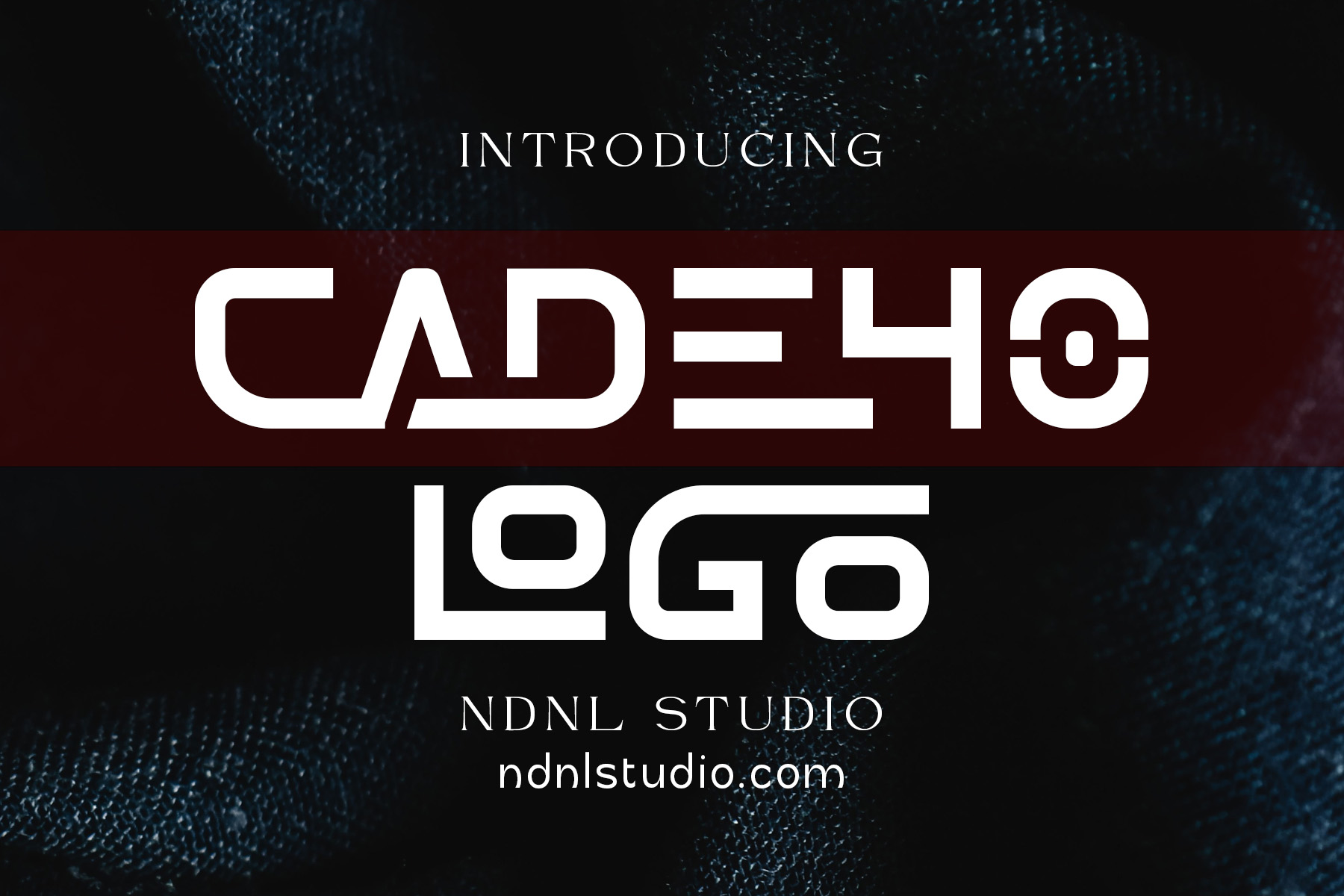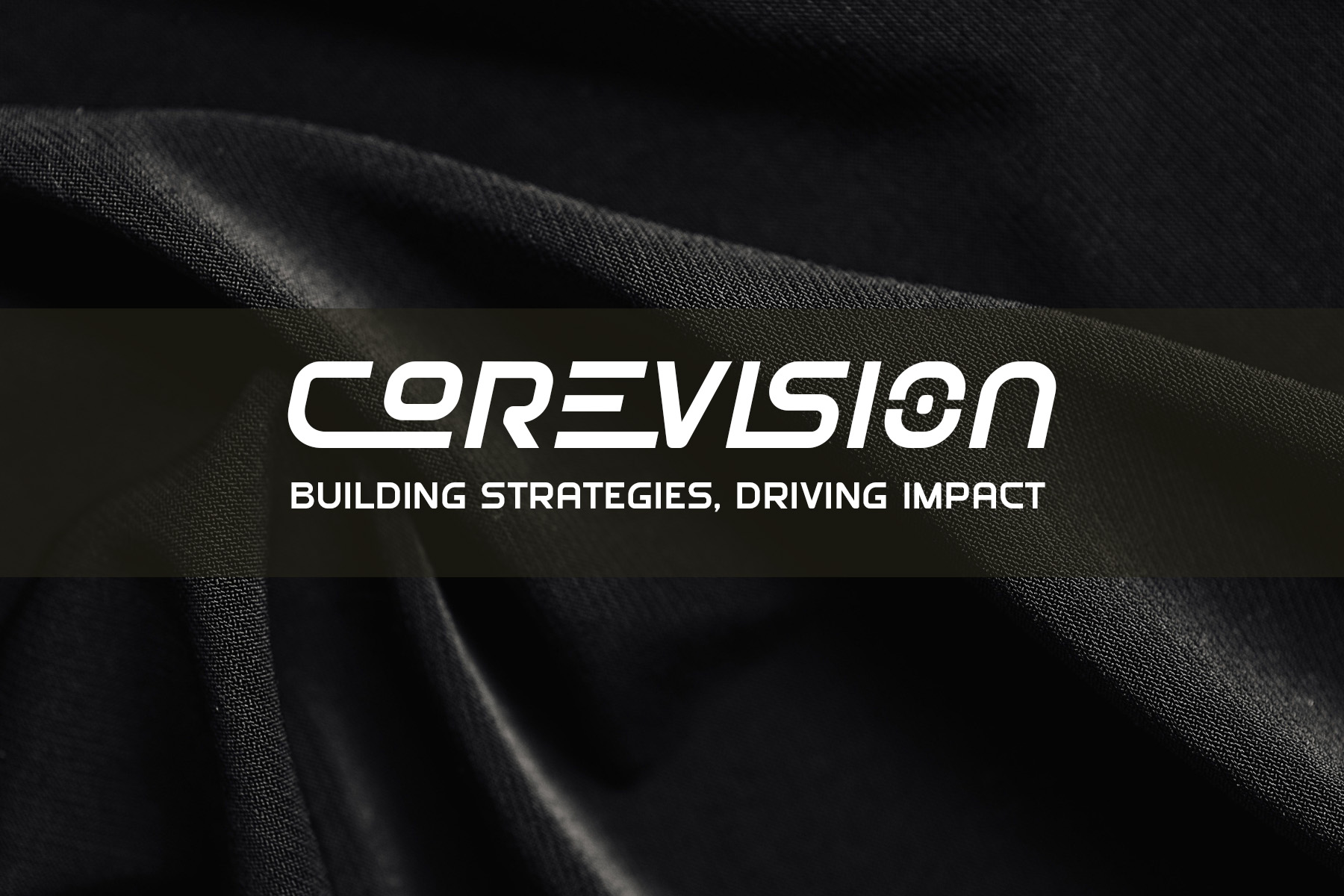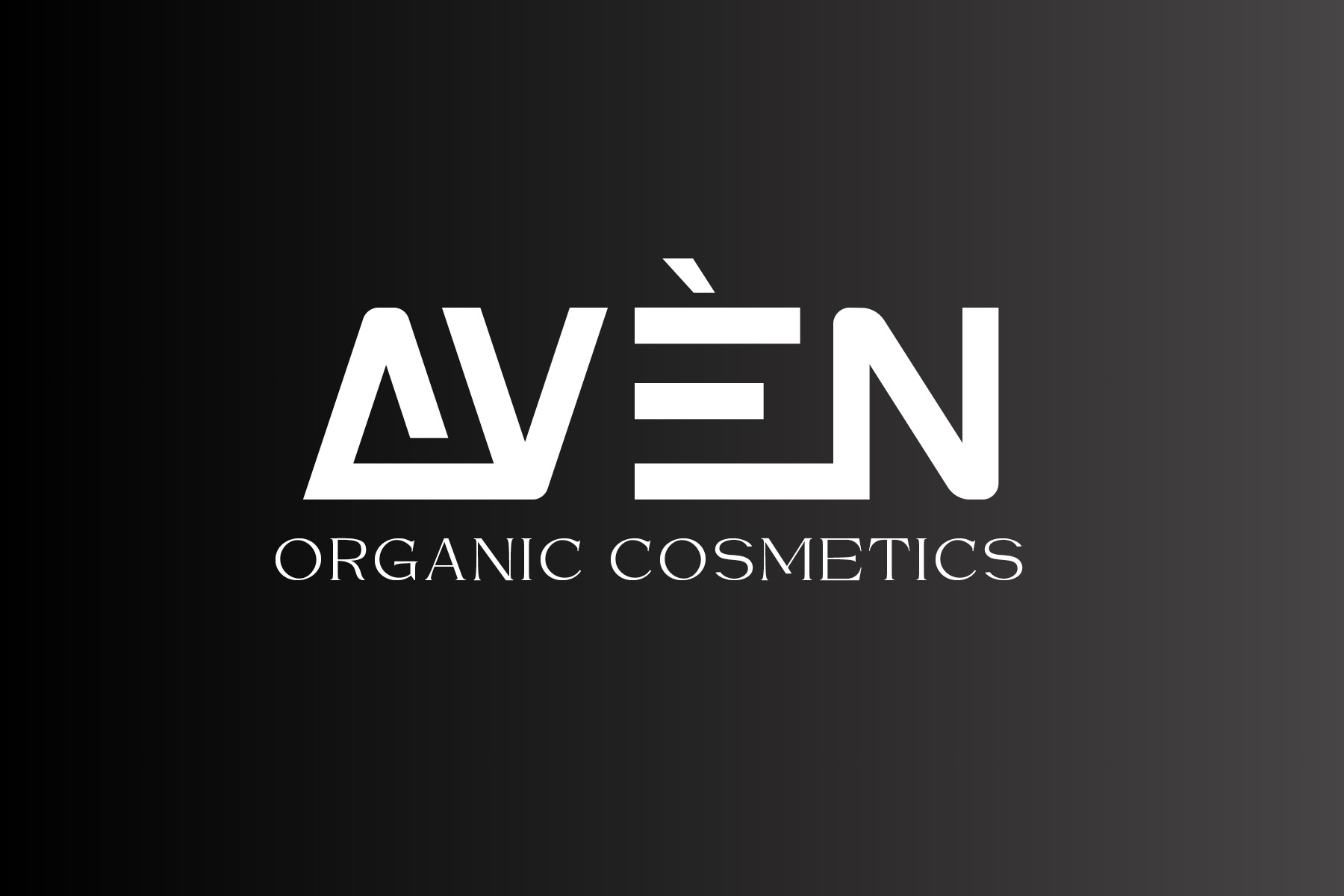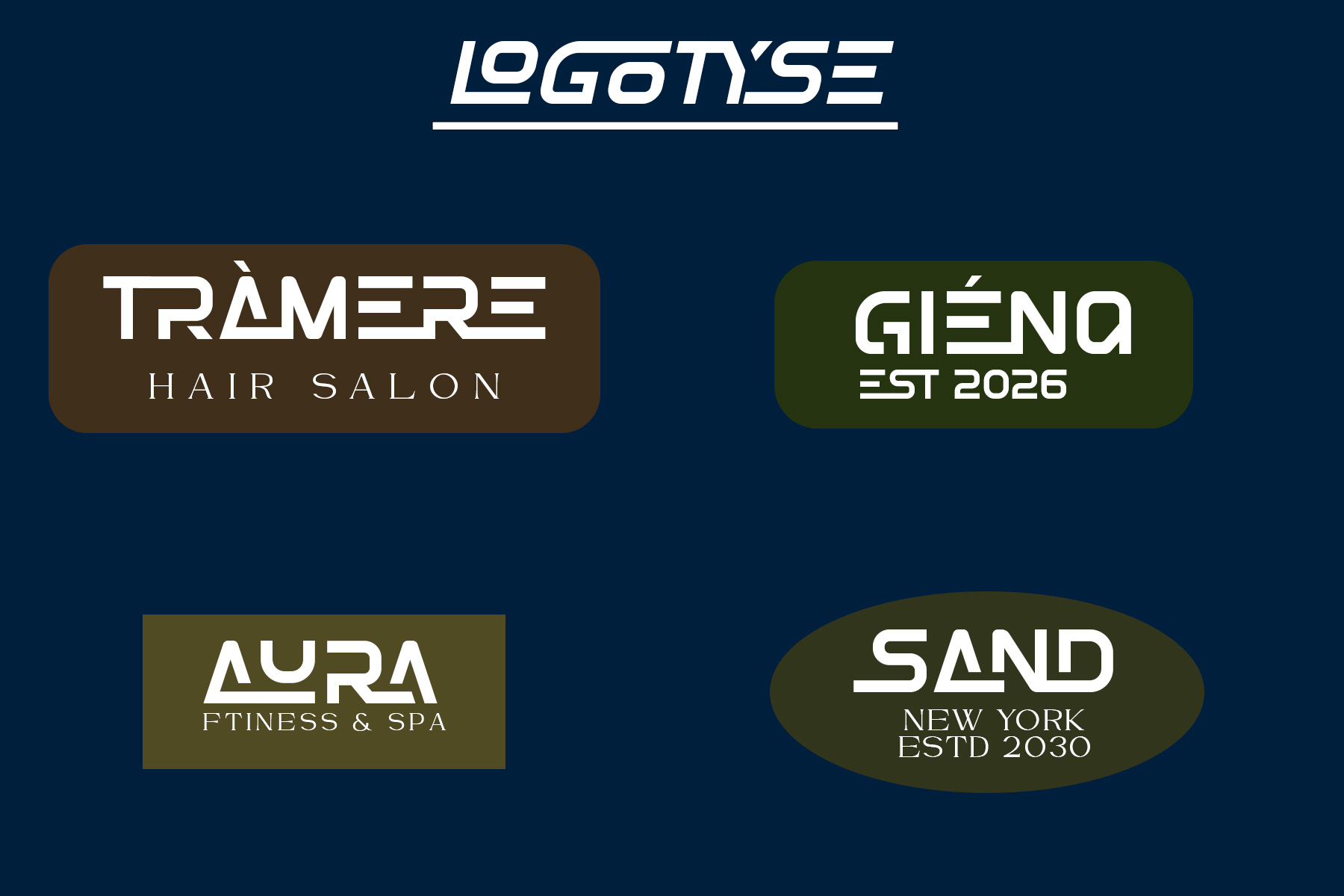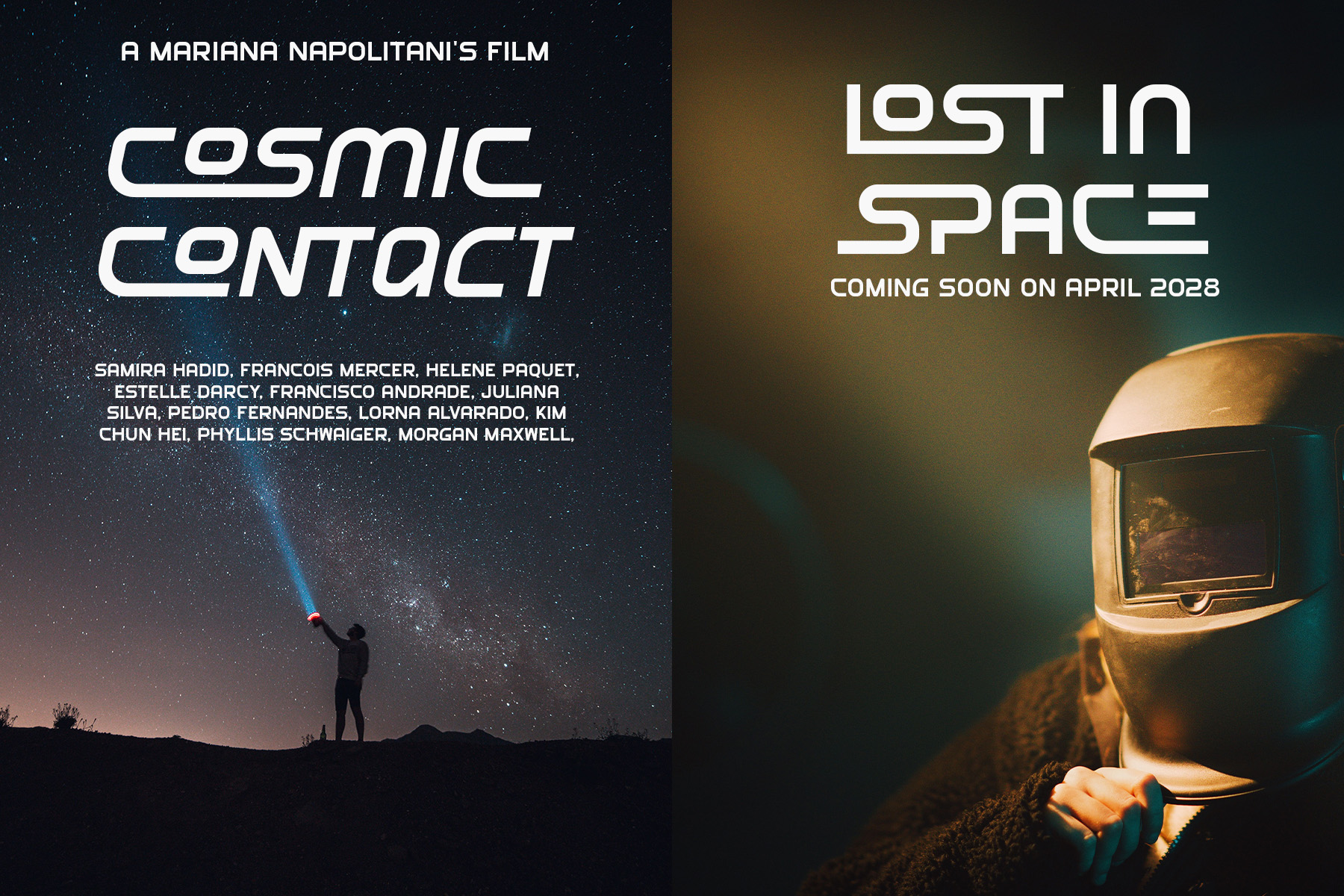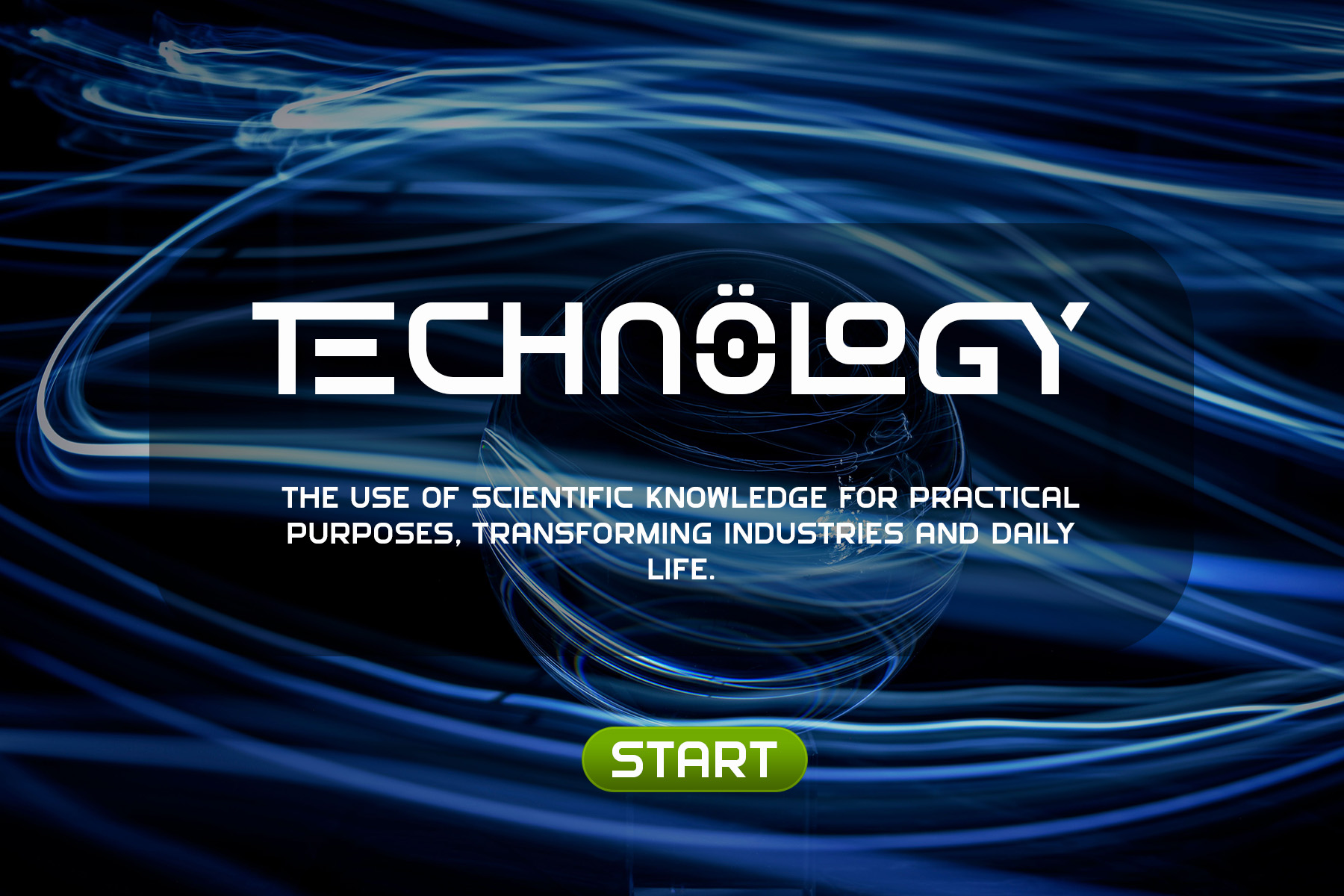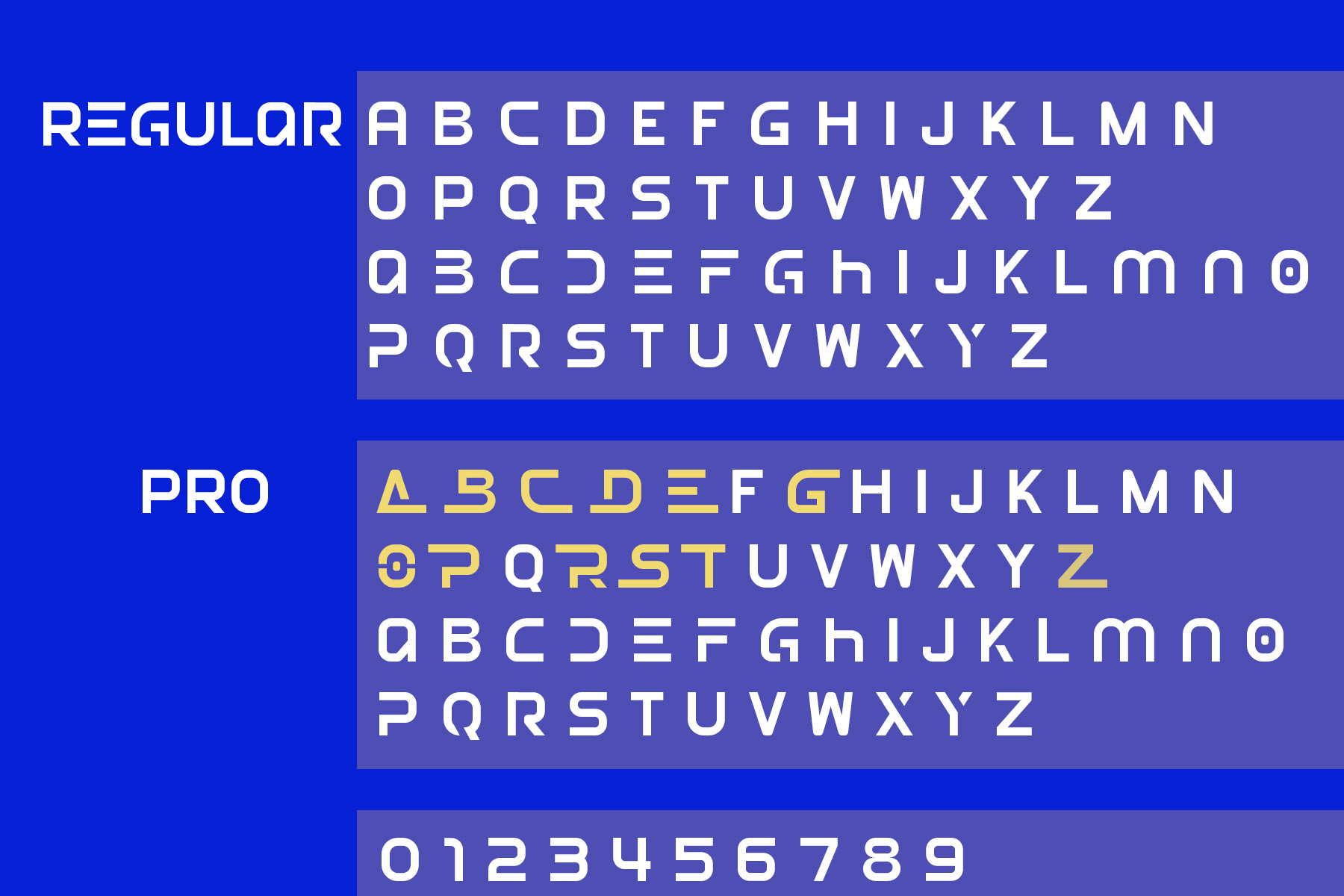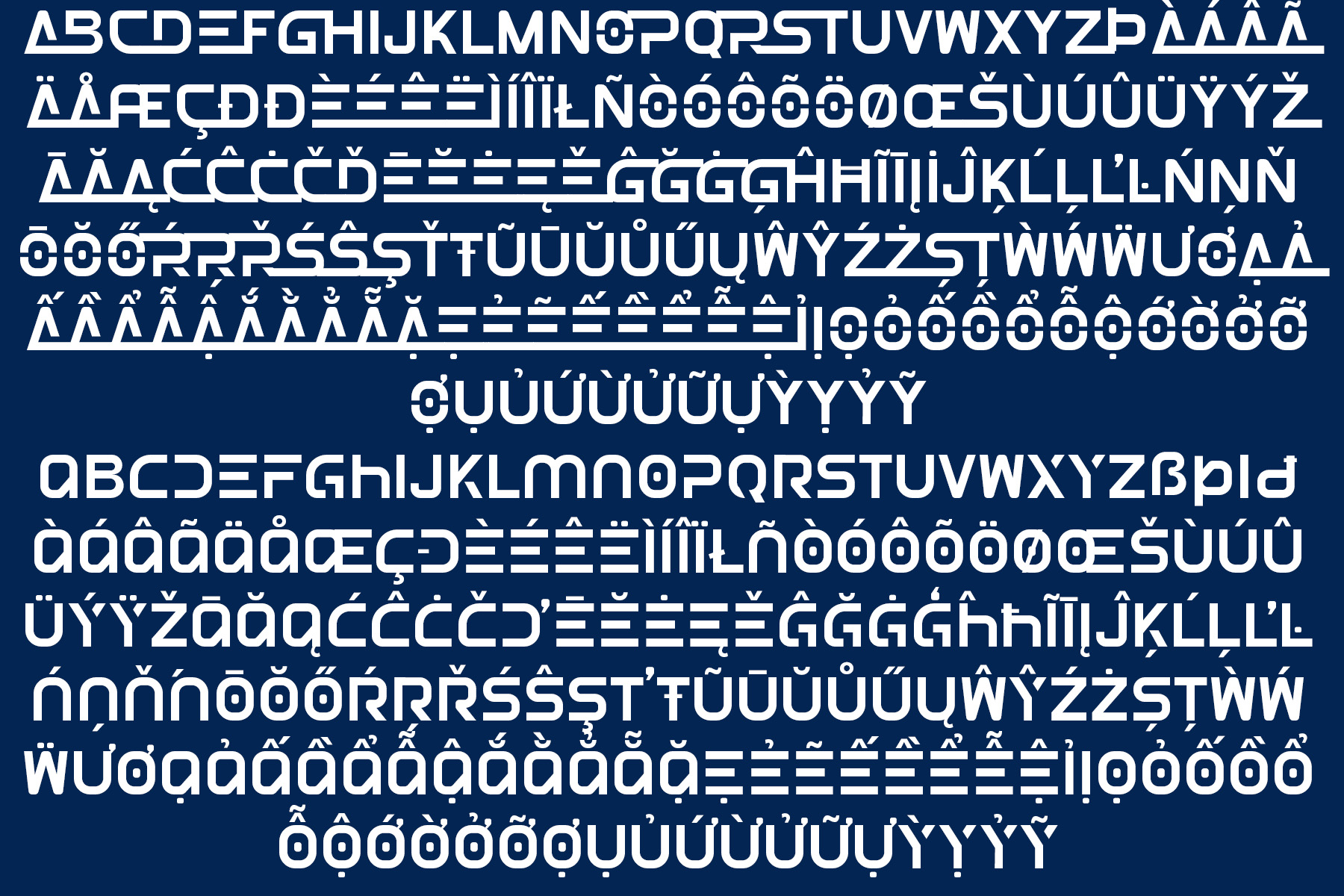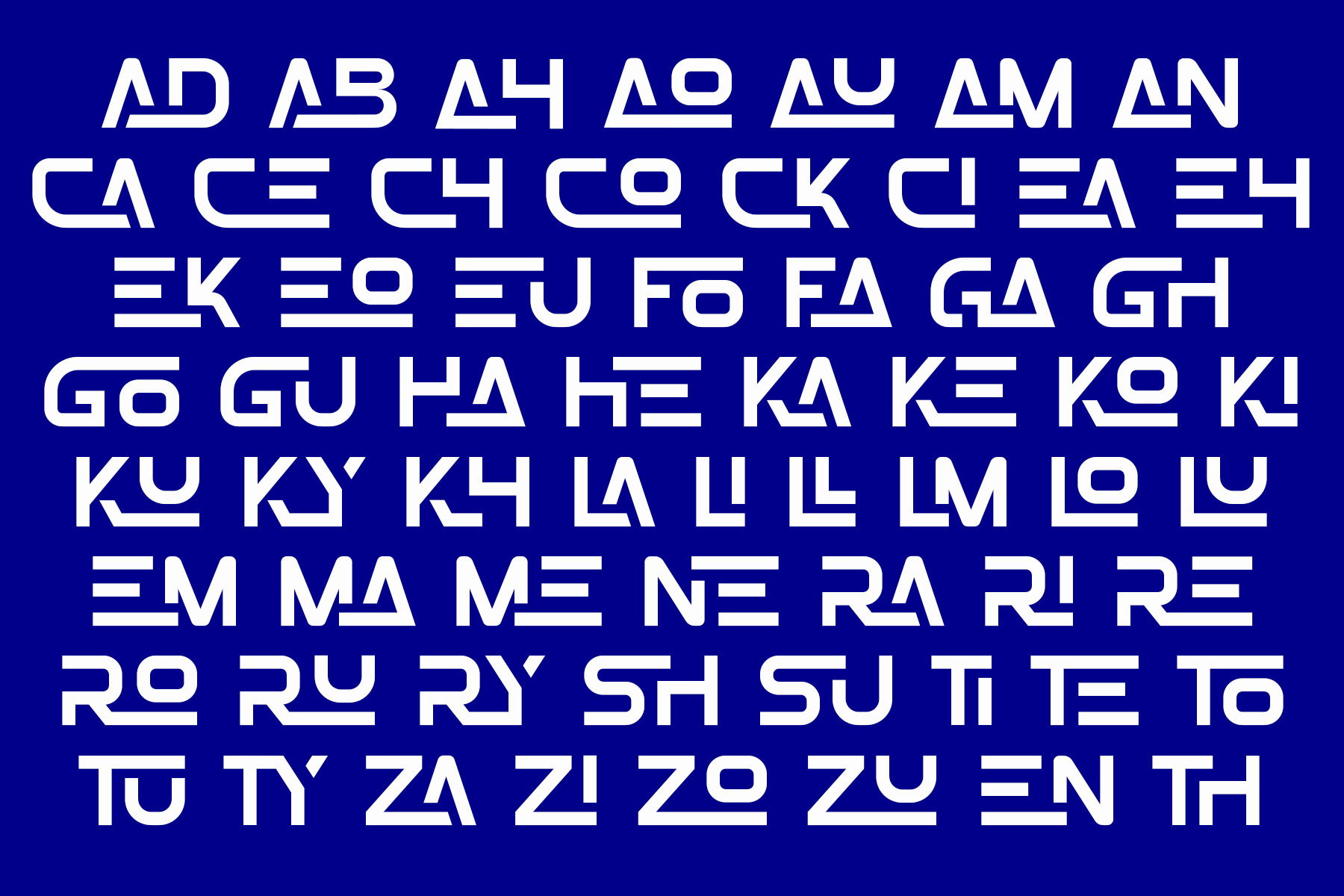
Introducing Cadeho!
Cadeho is a bold futuristic display font with a distinctive geometric character and a strong technological feel. Its unconventional letterforms, clean lines, and unique proportions create a striking visual identity that instantly captures attention.
Designed for modern and experimental projects, Cadeho works beautifully for logos, branding, posters, album covers, headlines, packaging, gaming graphics, and other creative designs that need a bold futuristic touch.